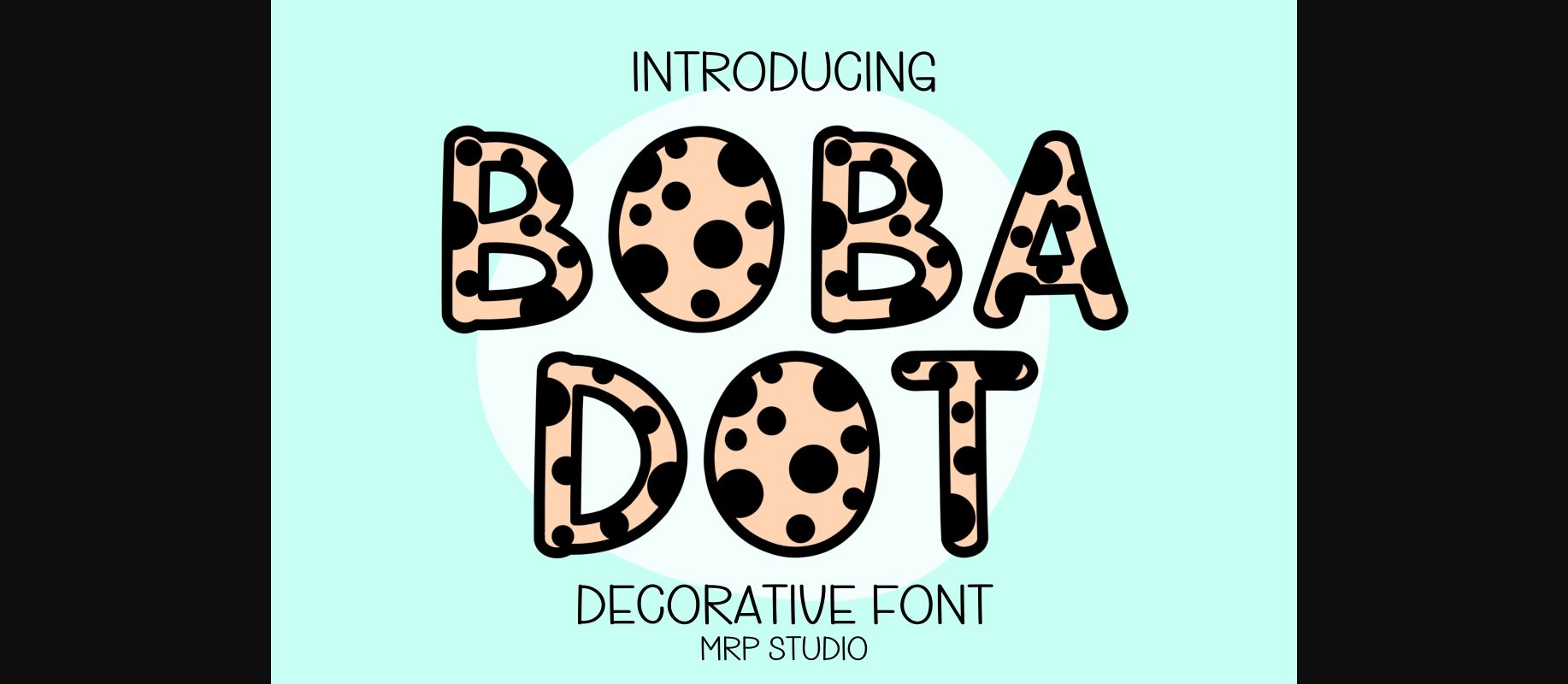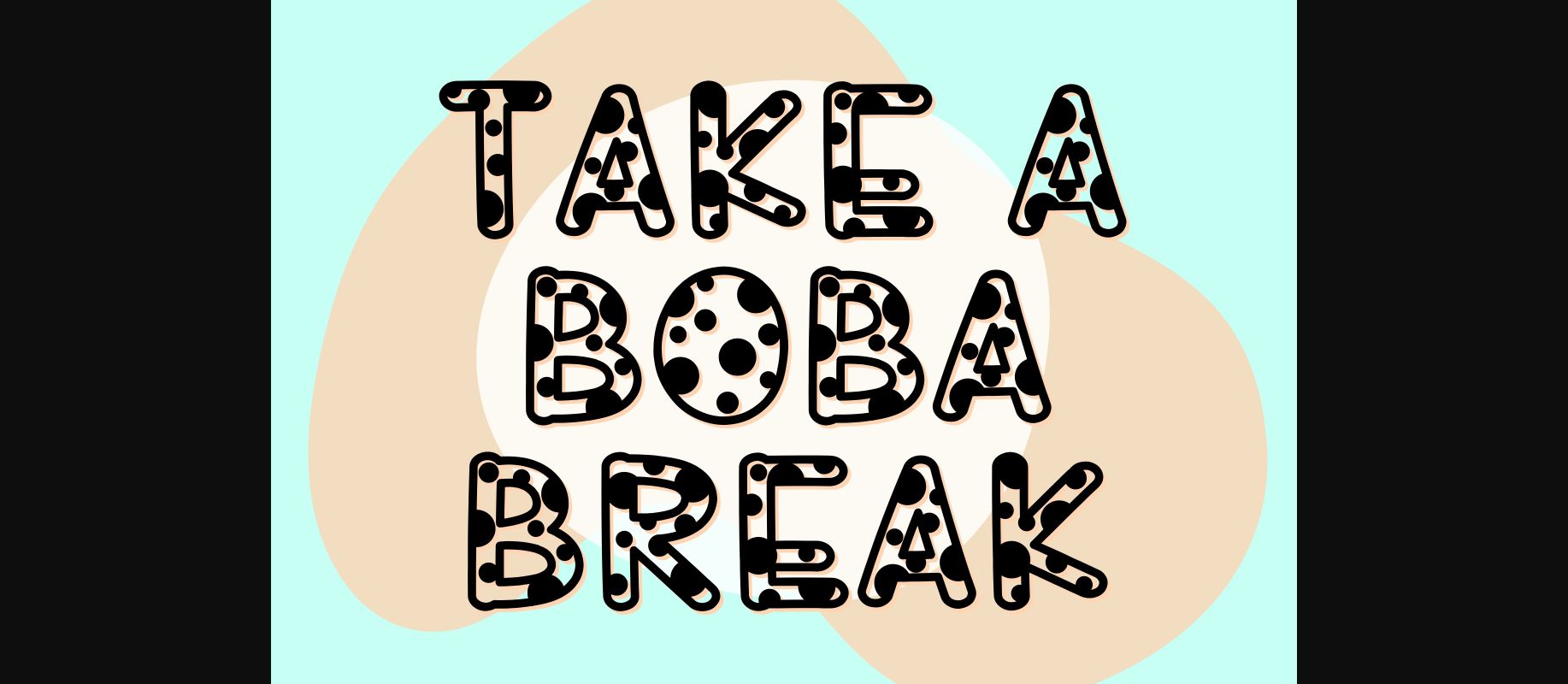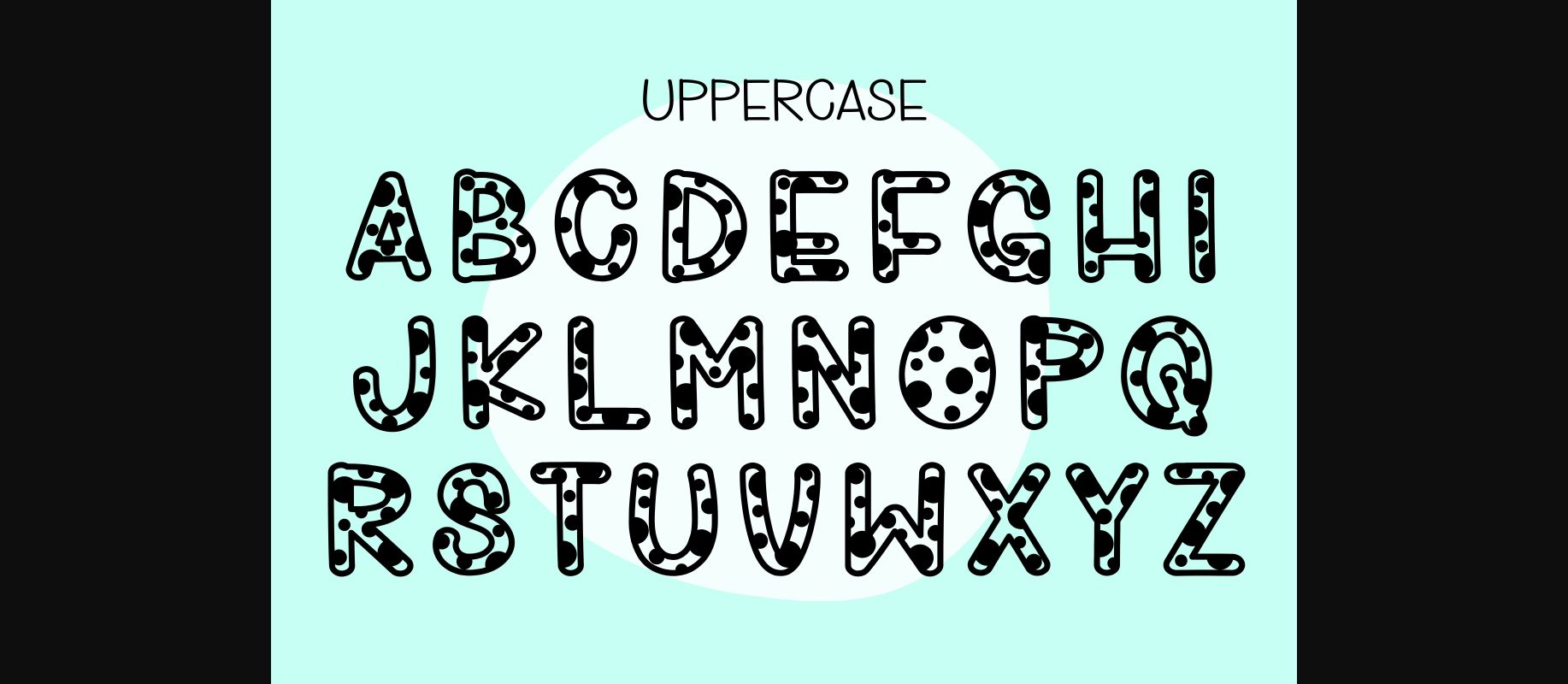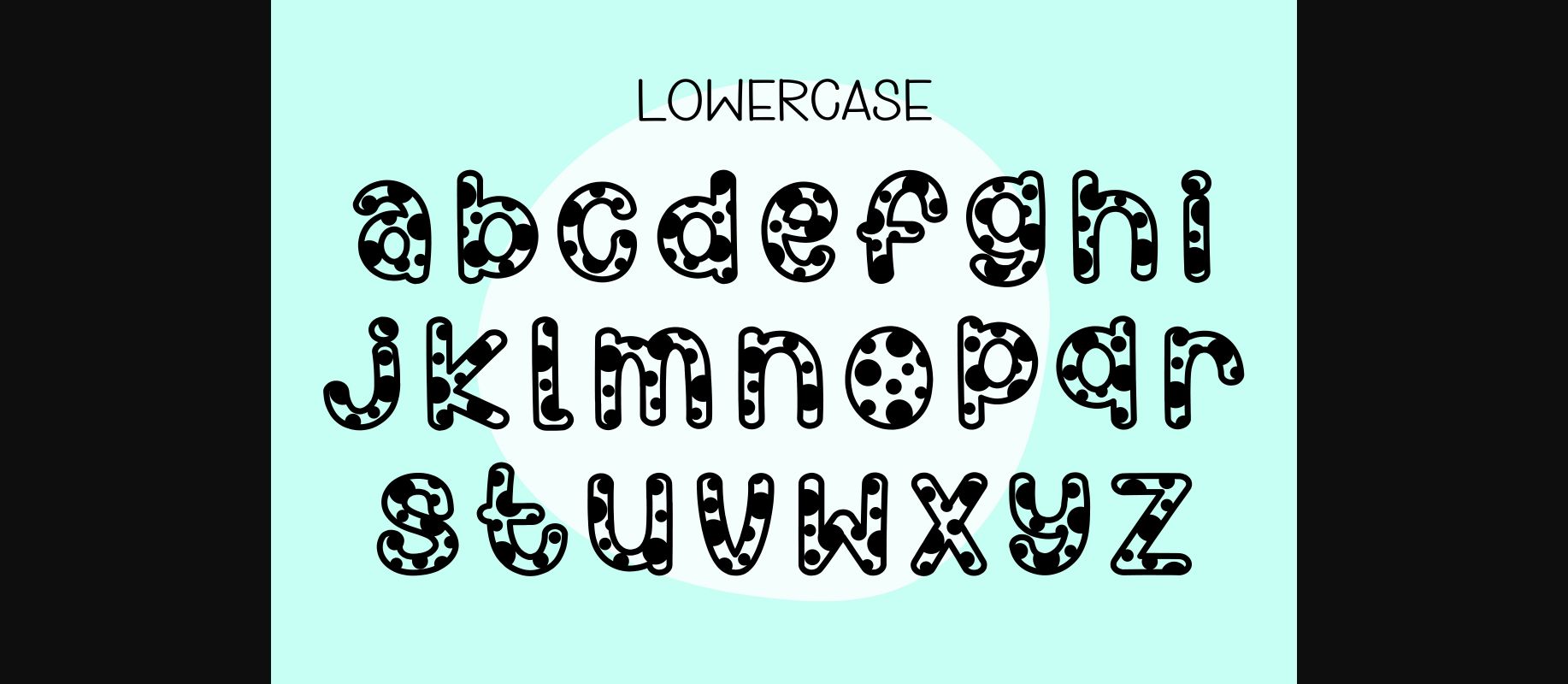
Boba Dot Font
About Boba Dot Font
Boba Dot is a cute and adorable decorative font. No matter the topic, this font will be an incredible asset to your fonts’ library, as it has the potential to elevate any creation.